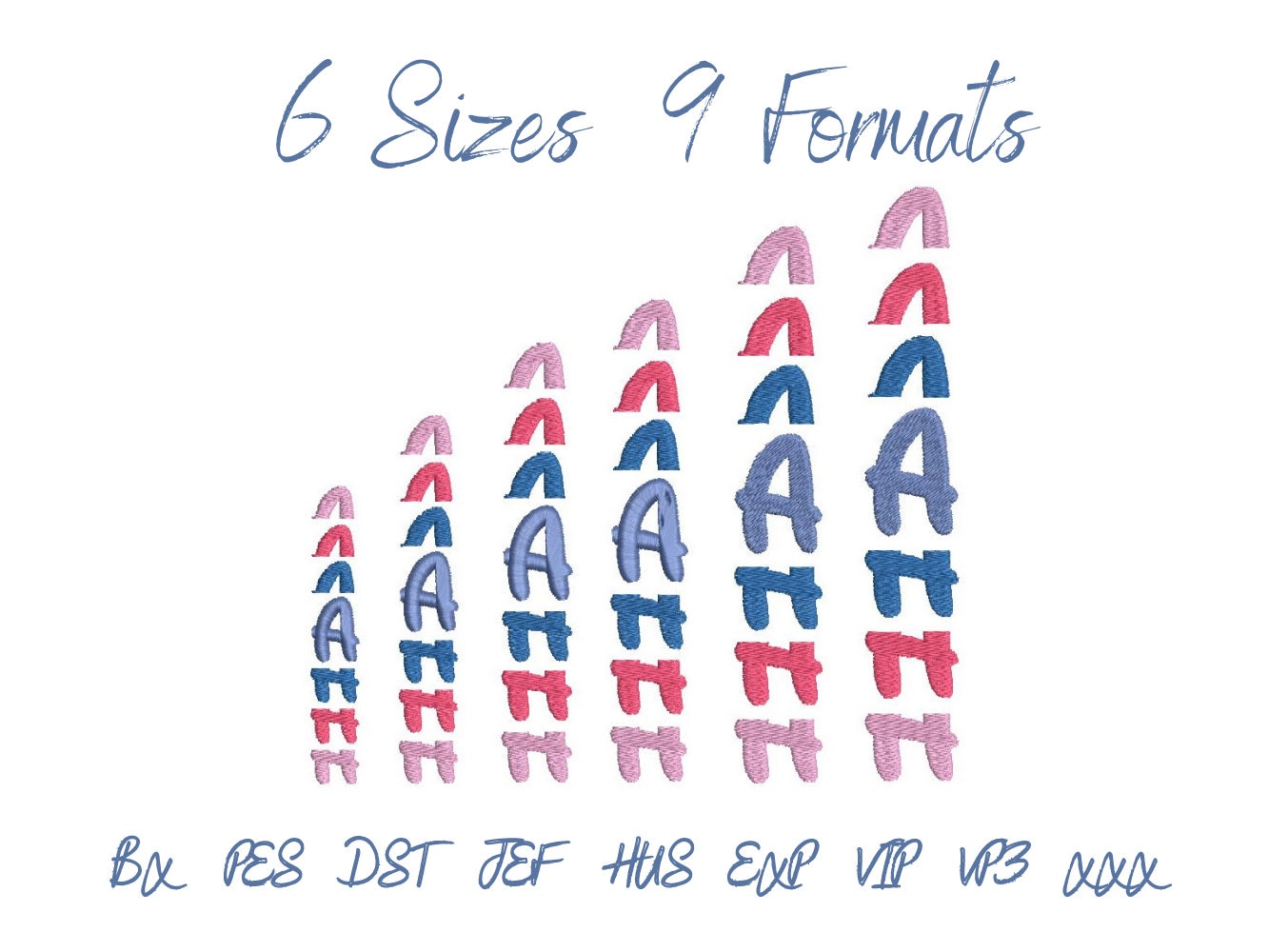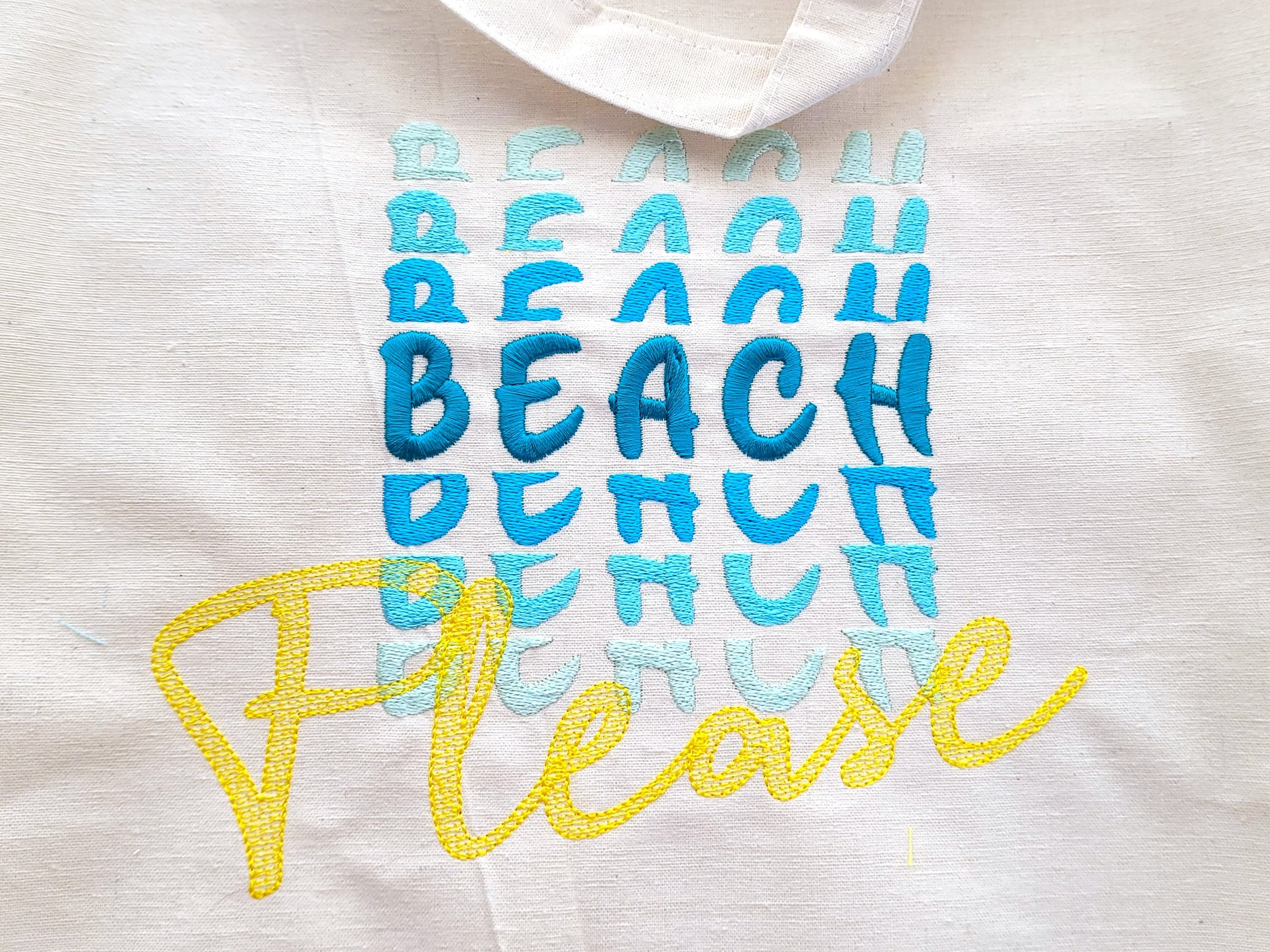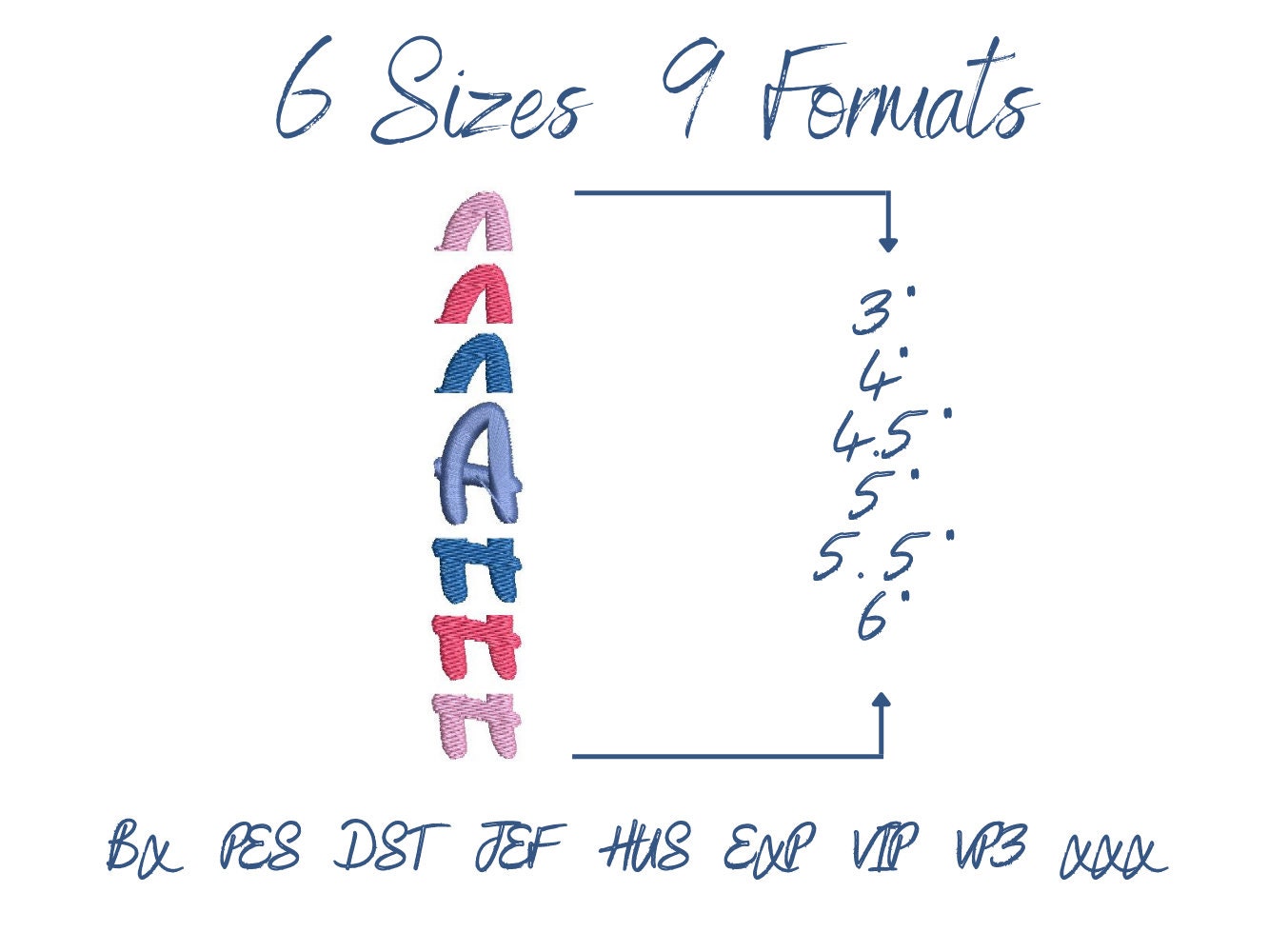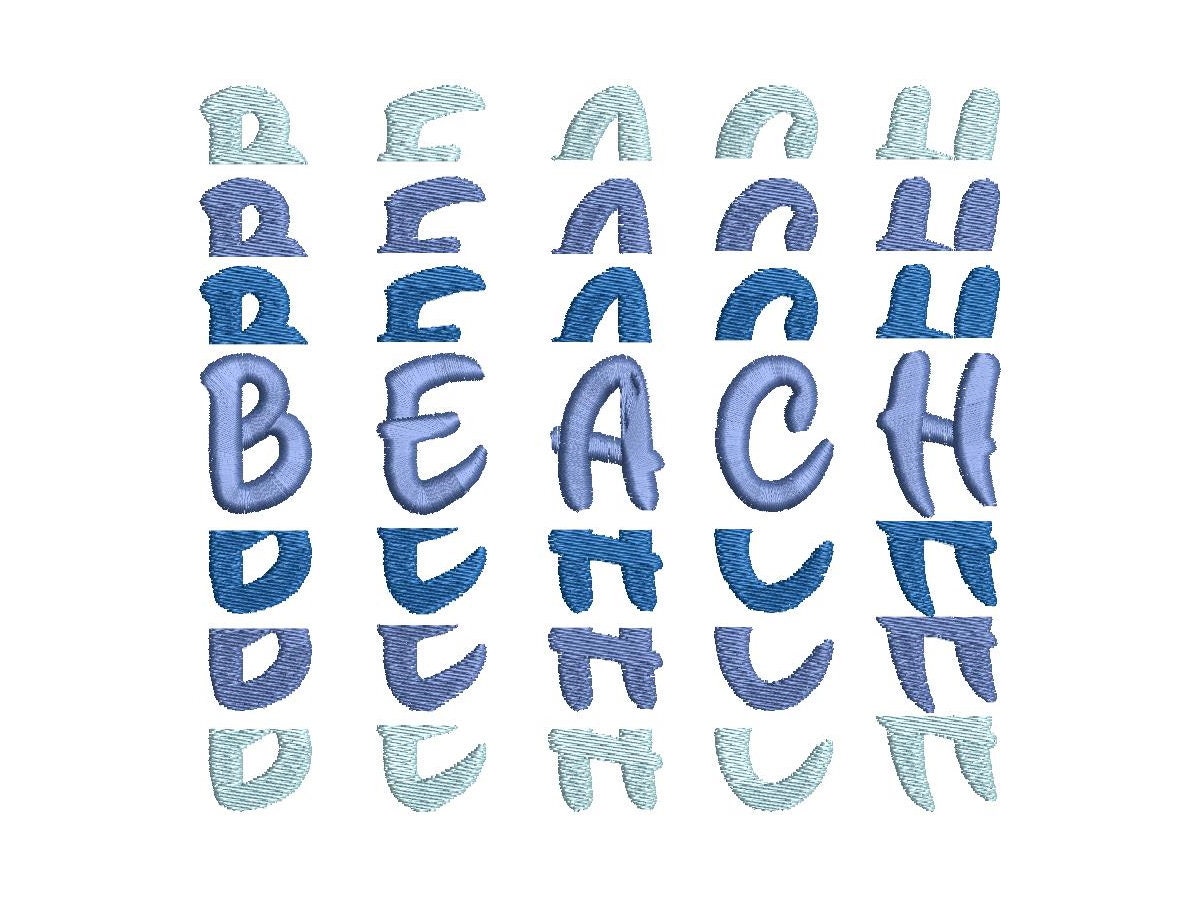
Stacked Font, BX included! fill stitch and satin alphabet letters, summer kids trend Font monogram machine embroidery designs many sizes
The whole alphabet A-Z uppercase